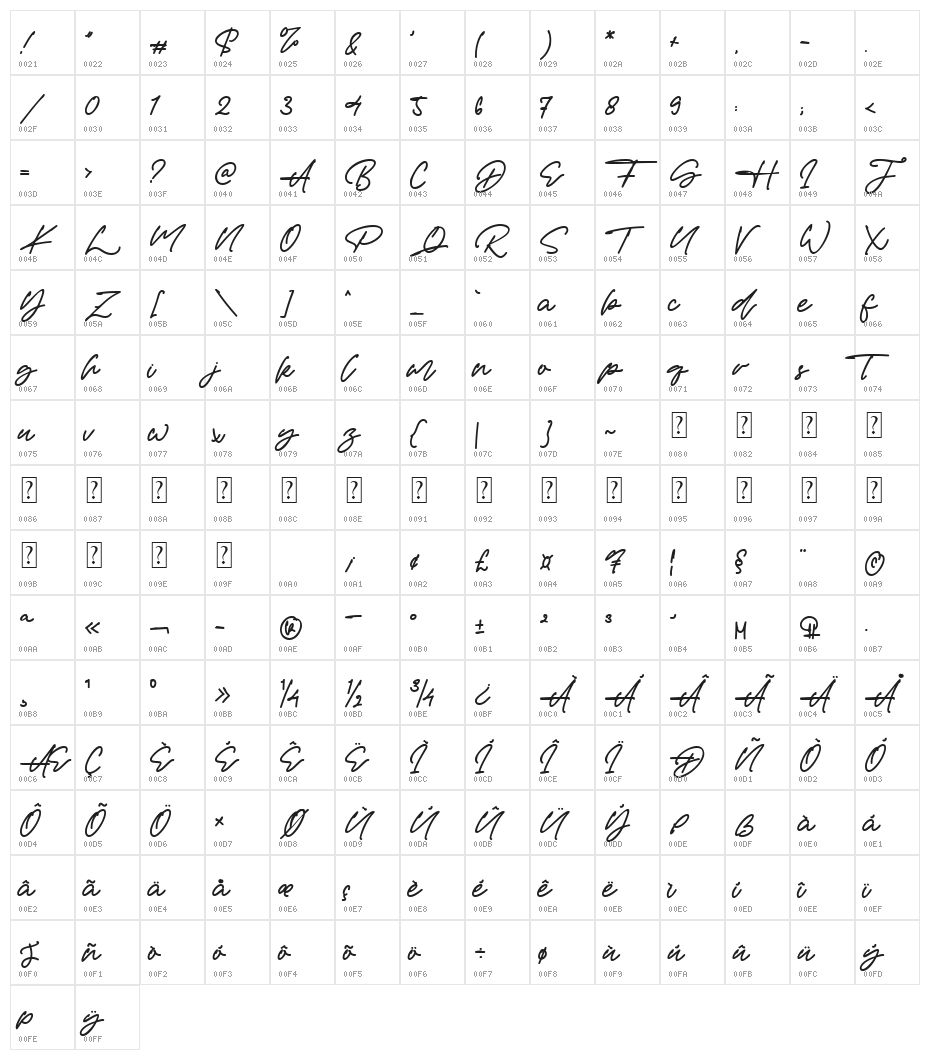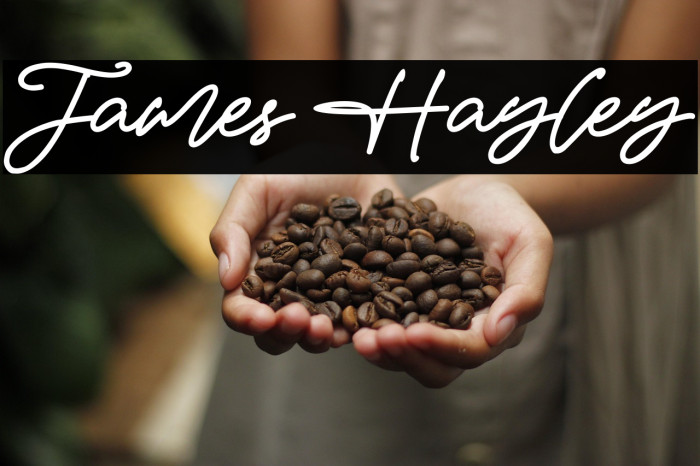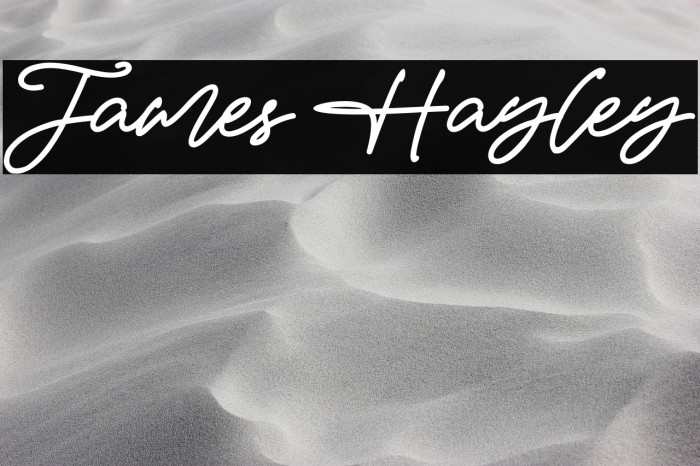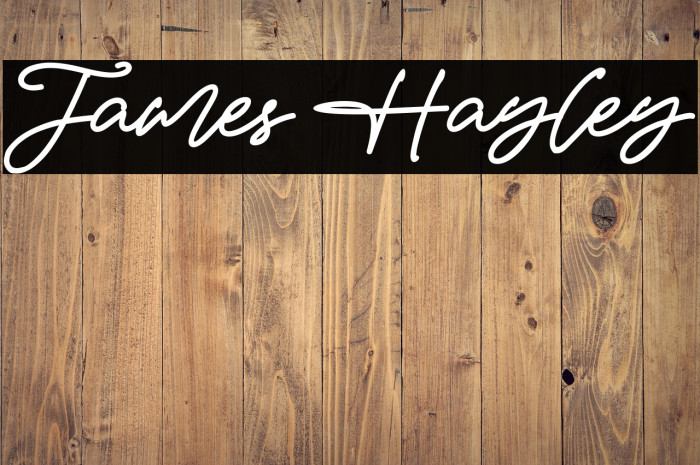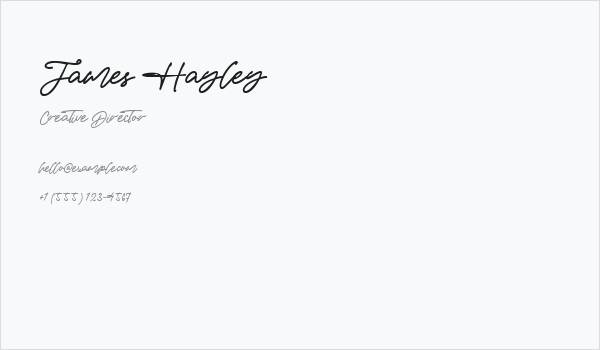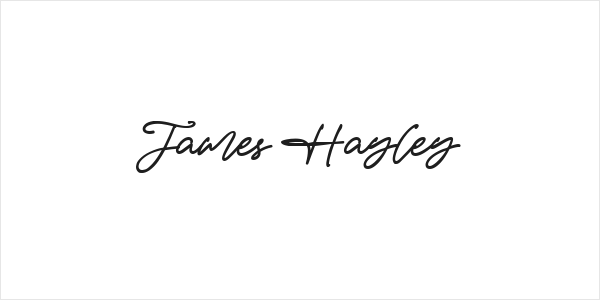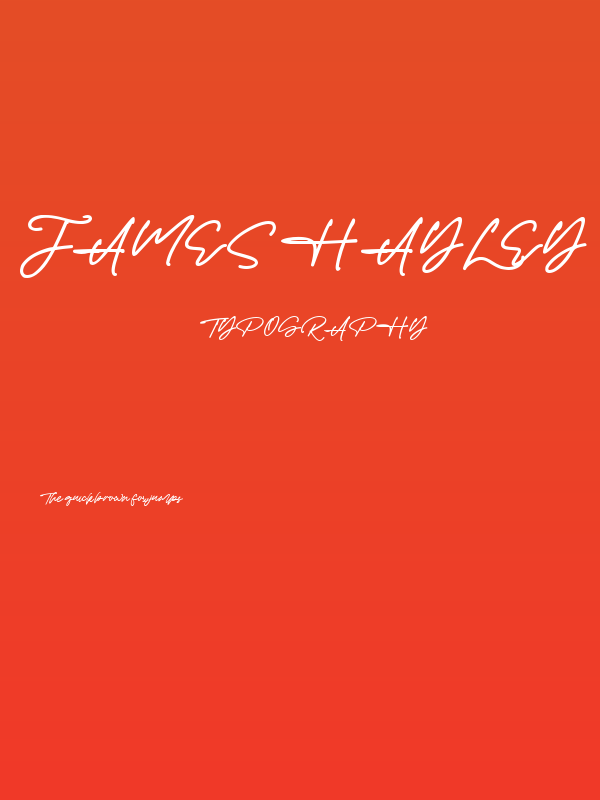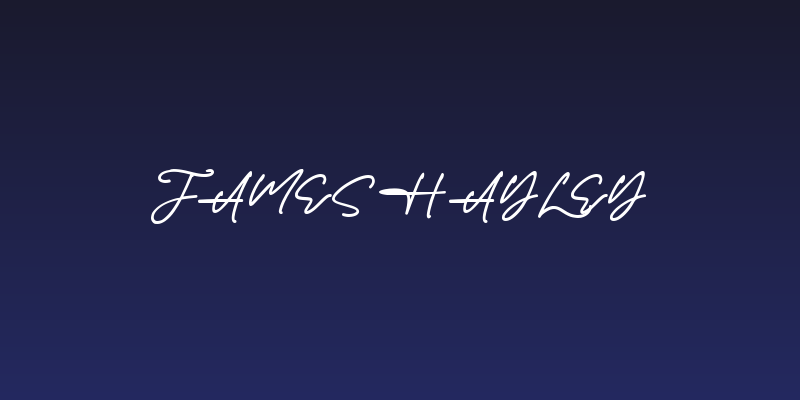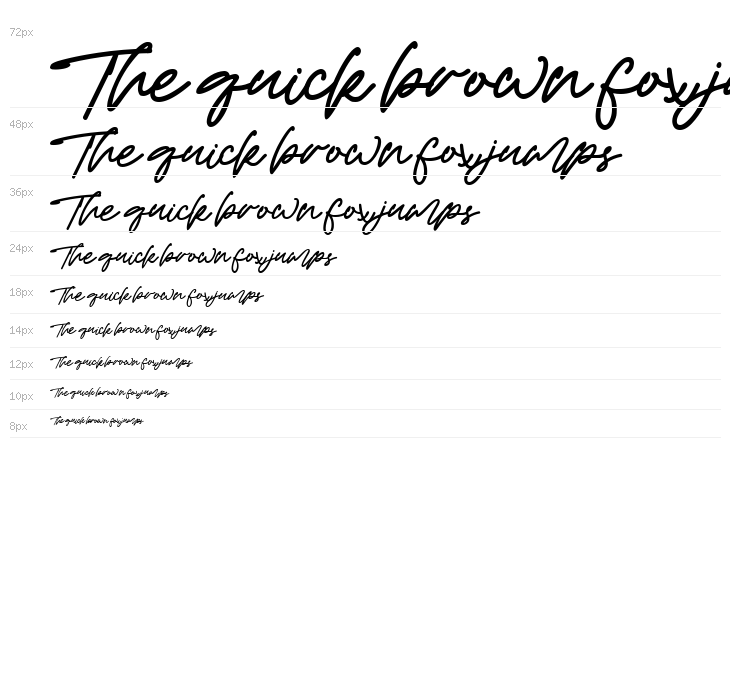
James Hayley Font
James Hayley Description
This font exudes a dynamic and energetic feel with its fluid, cursive script style. The letters are interconnected, creating a seamless flow that mimics natural handwriting. The strokes are bold and confident, with a slight slant that adds to the overall elegance. The uppercase letters maintain a consistent height, while the lowercase letters vary in size, adding a playful touch. The numerals and special characters are crafted with the same attention to detail, ensuring a cohesive look across all elements. This font is perfect for projects that require a personal, handwritten touch.